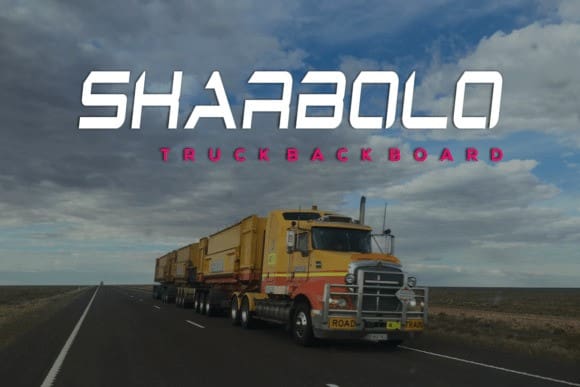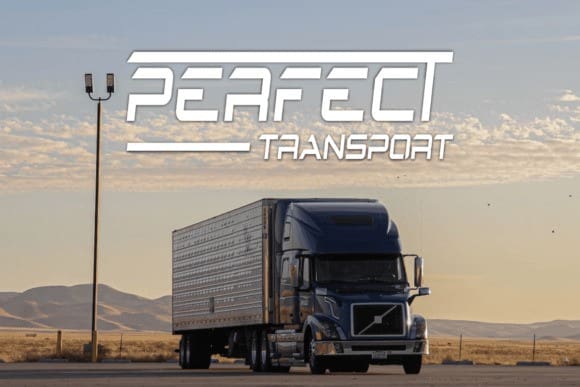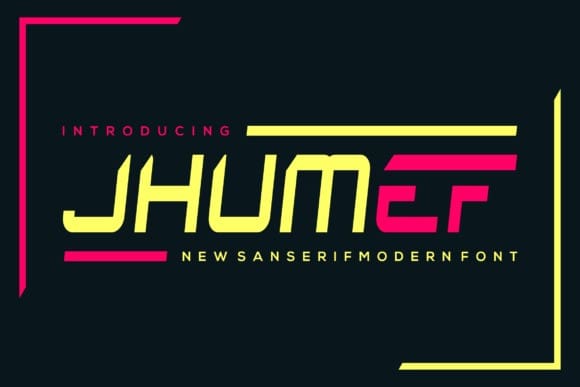
Jhumef Font
Jhumef Font is a bold and distinctive display font, perfect for branding projects such as logos, sports themes, and more. It stands out across various applications.